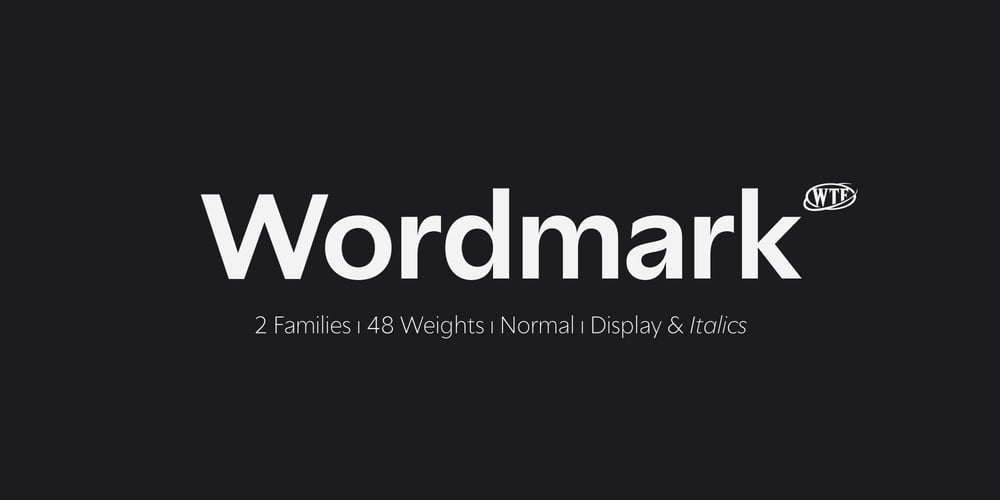
Wordmark Font Family was designed by Gaspar Muñoz and published by W Type Foundry. Wordmark contains 48 styles and family package options. Wordmark is our new fully equipped branding tool. Designed with a refreshed humanist style, much loved by brands that need to deliver their message in a serious way, with a current look.Drawn by the cool eye of Gaspar Muñoz, expect this font to be as good or even better than its predecessor “Herokid”.”Wordmark” is super complete; it includes condensed, thin, expanded, and heavy weights plus italics with two complementary systems that work together in a powerful way. “Wordmark Normal” offers great readability for text and signage, big or small. And “Wordmark Display”, designed with a noticeably taller X height specifically made for headlines, big windows, and big screens.With 48 different styles keep it simple and make reliable designs with “Wordmark”.